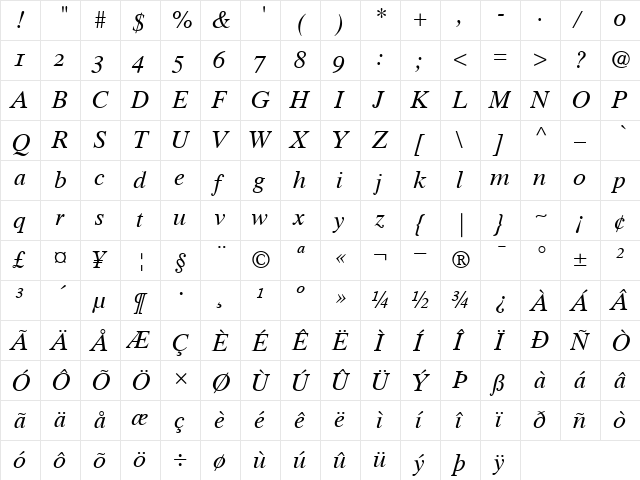
TimesTenOldstyleFigures RomanItalic Font Preview
TimesTenOldstyleFigures RomanItalic
Design Context for TimesTenOldstyleFigures Typeface
TimesTenOldstyleFigures carries the refined structure of traditional serif typography, with bracketed terminals and considered proportions that communicate credibility and craft. Its italic angle brings a sense of urgency and motion to the letterforms.
Pro Tip: Use TimesTenOldstyleFigures for editorial body copy and considered headline work. Pair with a neutral sans for UI elements or captions to create a classic hierarchy.